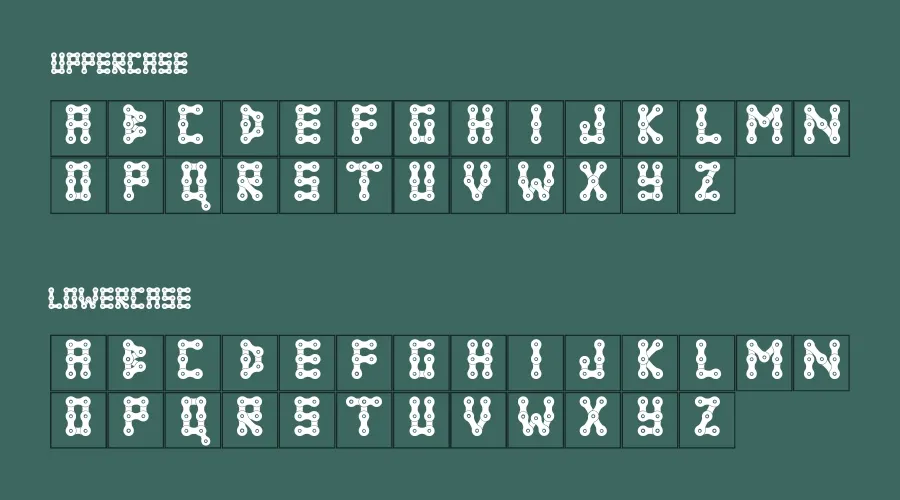
Chain Font
About Chain Font
Chain Font is designed by Gaut Fonts it is a decorative text style. The characters have rounded shapes that are connected to each other which creates amazing sleek designs for any kind of project.
By pairing the text style with different typefaces, users can create real-time designs. It is suitable for Headers, Captions, and Movie titles and several numerous platforms are available where this text style can be used. With its natural look, the user can give it’s content an amazing design.
With this text style, the user can get an amazing feeling. The text style can be used for several purposes to attract his/her audience such as creating postcards, computer game visuals, and website designs. The project will get natural designs with a unique texture that will give a vintage feel to the content.
This text style is suitable for shop and logo designs, this typeface can be used to create amazing design patterns, book covers, product packaging, and much more. By using an online generating tool, you can simply construct this style to make fun designs for your upcoming project.
The typeface letters set an example of their adaptability and readability. Each character of the typeface has been produced with complete focus as well as the expertise that is required to create the content.
As a result, there were no mistakes in its letters. You can create business flyers, logos, and designs using simple and elegant textures to create covers and artwork. Web development is also possible with this style.
By using this style, any kind of project will stand out in front of the audience. It has great importance in the view of developers just because of its decorative and amazing design.
Name Chain Font
Designer Gaut Fonts
Style Decorative
• Chain Regular
Who is the designer of the Chain font?
The designer of the Chain Font is Gaut Fonts the typeface is an amazing choice for making logo designs.
What font is Chain Font in?
The Chain Font is belonging to the decorative typeface category.
Is Chain good for body text?
No, the typeface isn’t good to be used in the body text of the document just because of its design the main characters of this style will not be visible in small caps the texture is bit rounded.